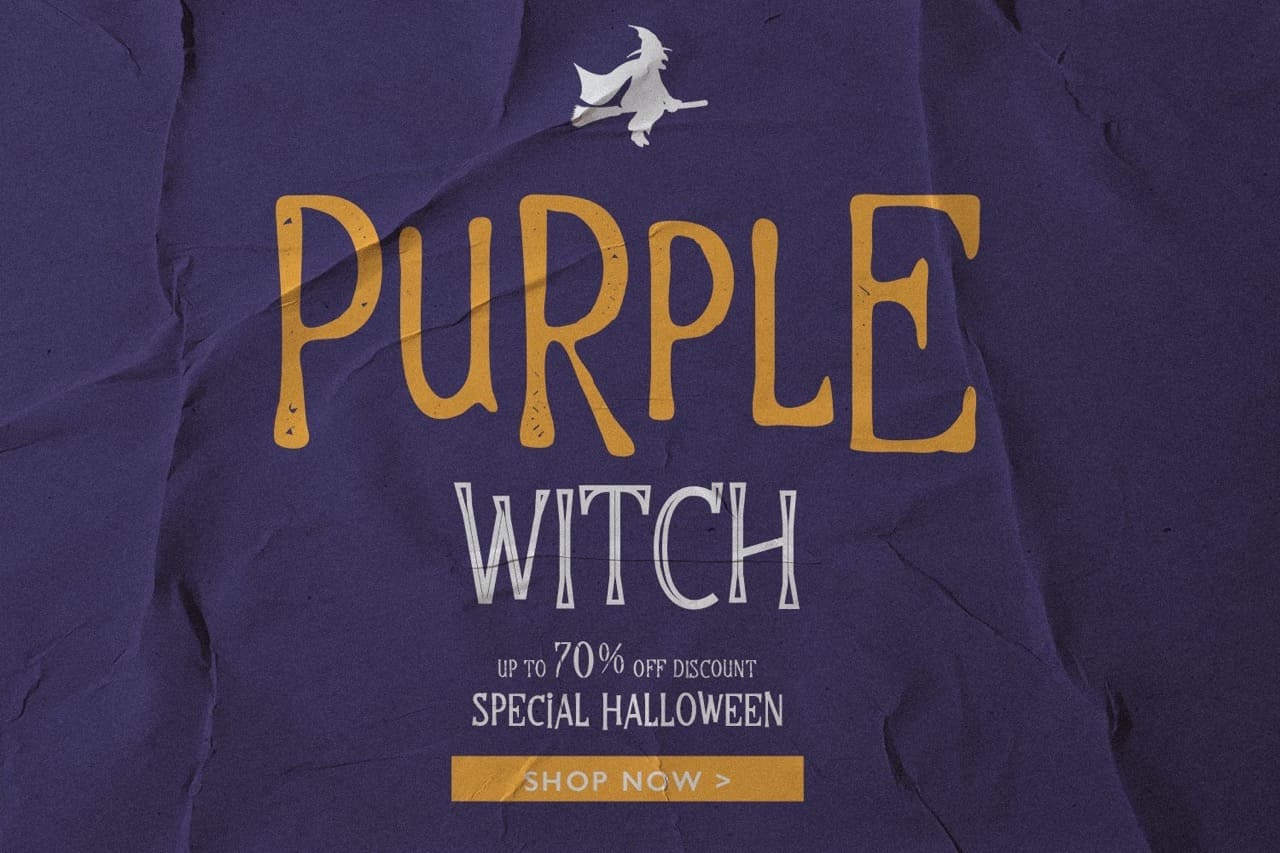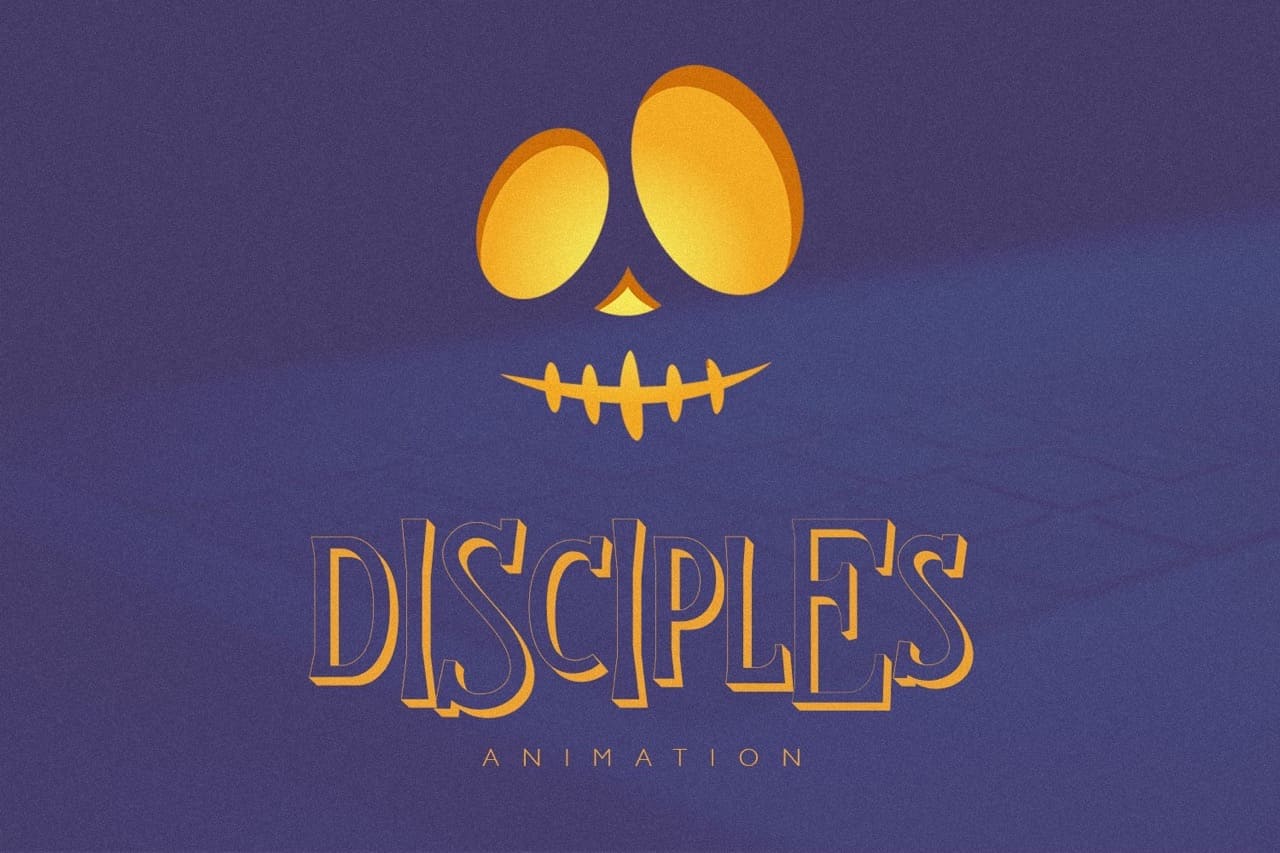
Halloween is around the corner, and there’s no better way to celebrate than with our Tombstone fonts. This year’s Halloween is fast, so use our Horror font as a springboard for your spookier project. With numbers, punctuation, and multilingual letters all included in this Fallen Angel tombstone-style Horror font, it’s sure to be a hit. Give your creativity room to soar!
• 7 Styles
• Basic Latin A-Z and a-z
• Numerals & Punctuation
• Stylistic Ligatures and Alternate Glyphs
• Multilingual Support for ä ö ü Ä Ö Ü …
Tombstone Halloween Font